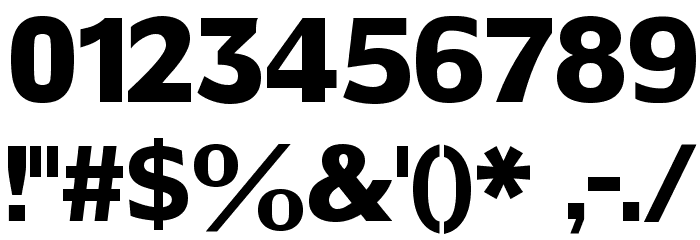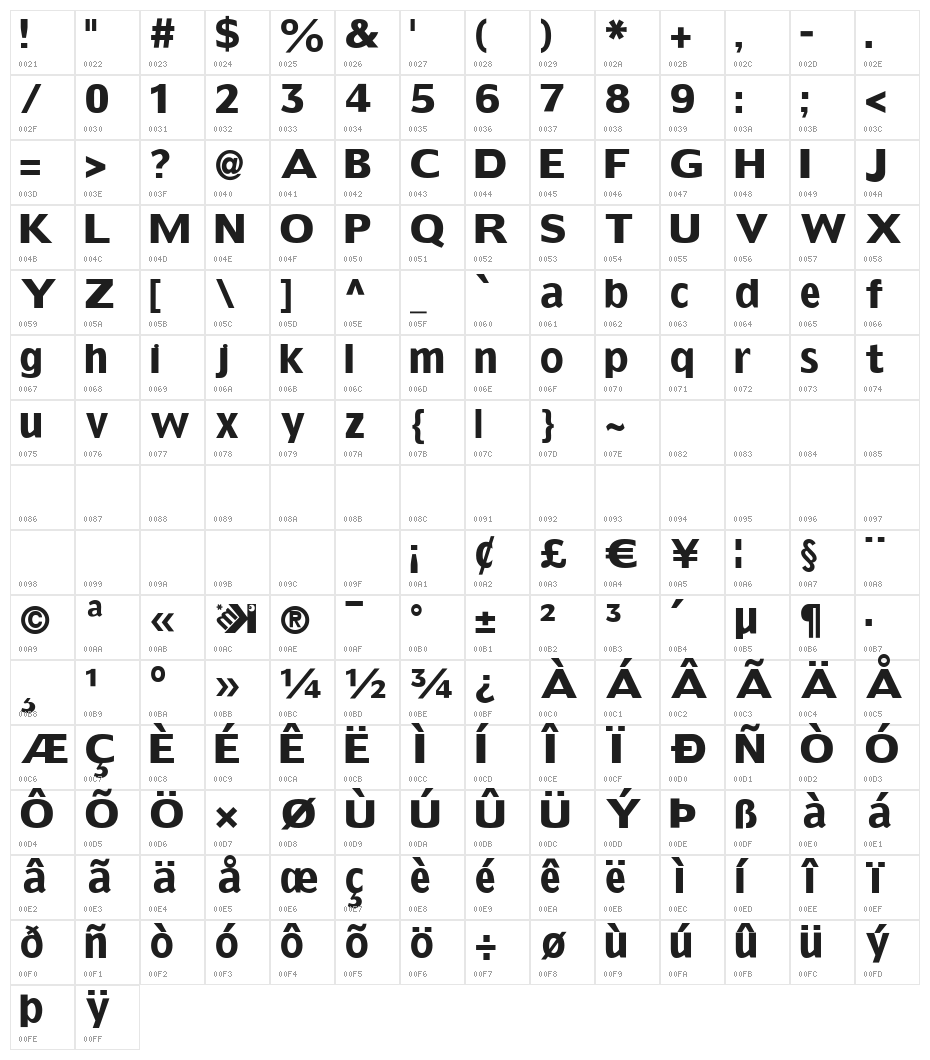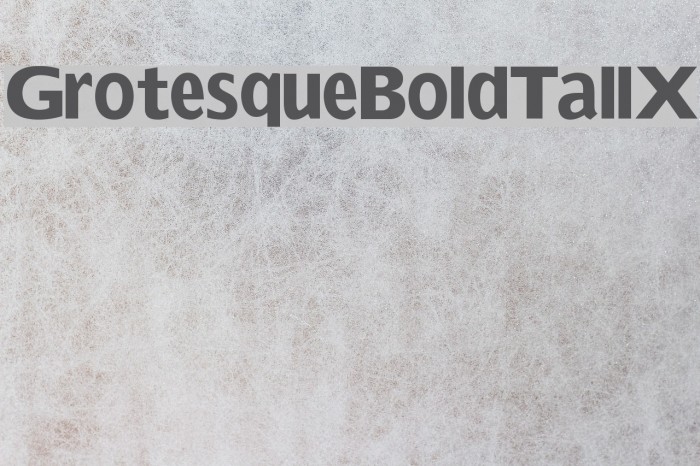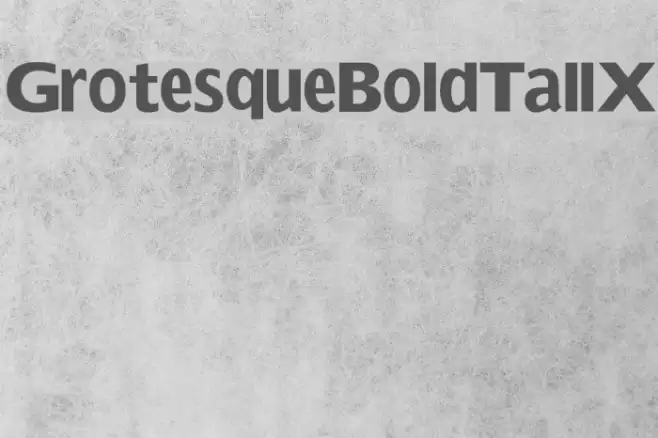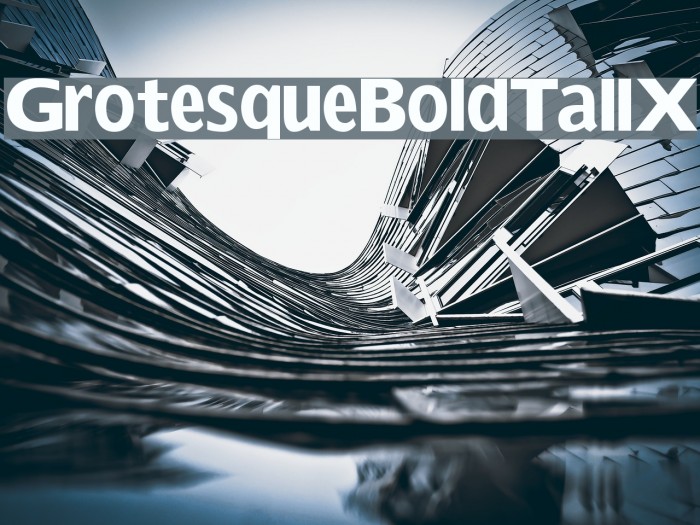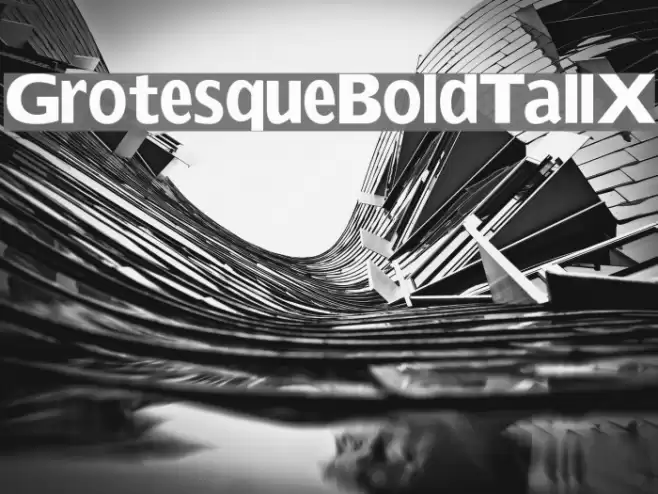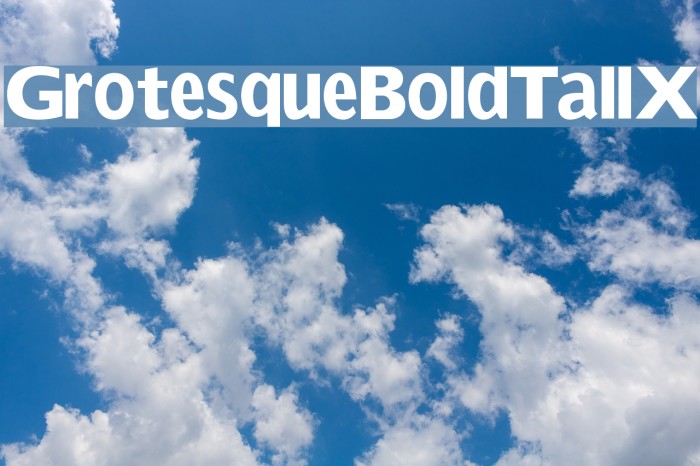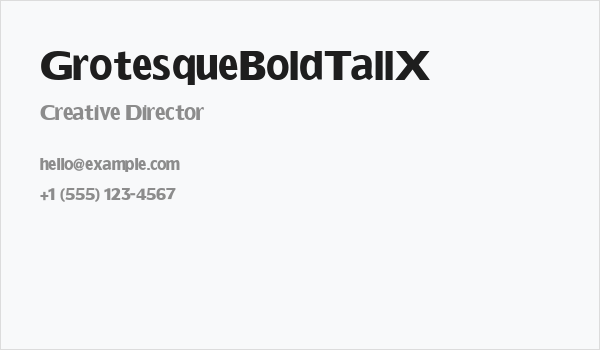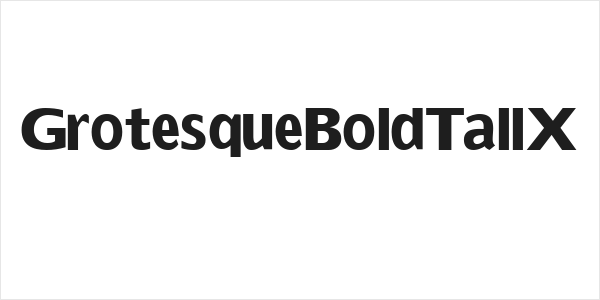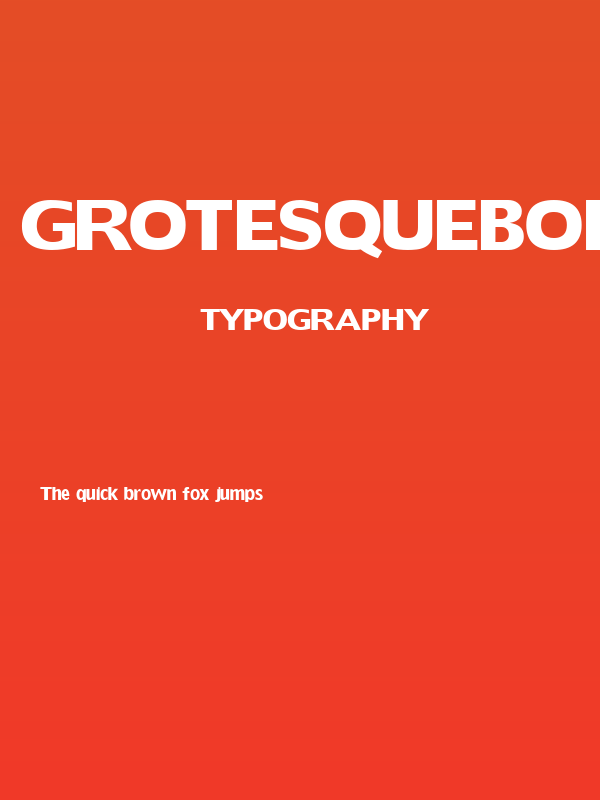
GrotesqueBoldTallX Font
GrotesqueBoldTallX Description
This font features a bold and commanding presence with its tall, robust letterforms. The characters are designed with a strong emphasis on vertical lines, giving them a towering appearance. The strokes are consistent in width, contributing to a uniform and cohesive look across all characters. The uppercase letters are particularly striking, with their boldness accentuated by the tall x-height. Lowercase letters maintain the same boldness, ensuring readability and impact. The numerals are equally bold, making them stand out prominently. Special characters are crafted with the same attention to detail, ensuring they integrate seamlessly with the rest of the font. Overall, this font exudes strength and modernity, making it suitable for a variety of applications.